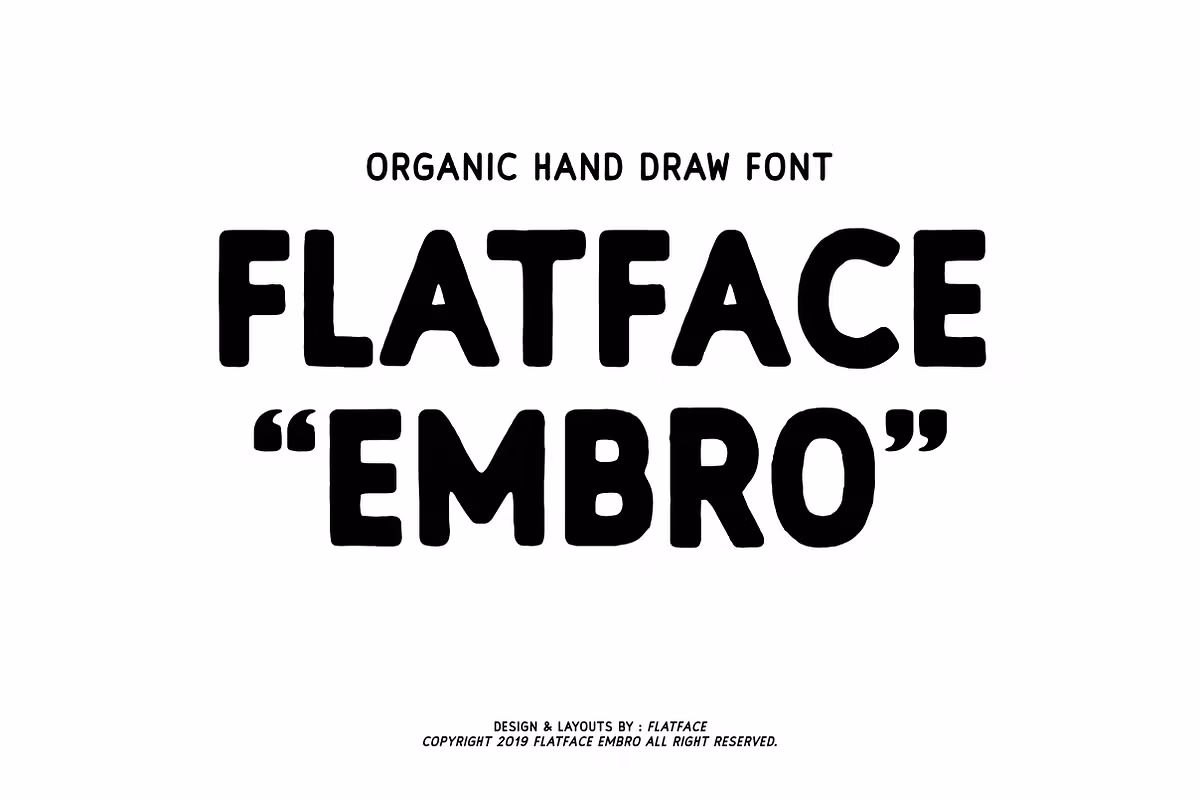
EMBRO Font Family Free Download is a sleek, modern, and versatile typeface family designed to suit a variety of creative and professional design projects. With multiple weights and styles, it’s perfect for everything from branding and logos to packaging, editorial design, and websites.
Its clean lines and contemporary proportions make it ideal for both display text and body copy, ensuring high readability across different media. Whether you're creating bold headlines, designing a modern logo, or crafting an elegant editorial layout, EMBRO Font Family provides a refined, professional aesthetic.